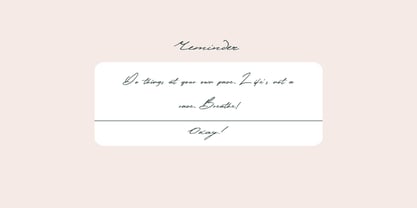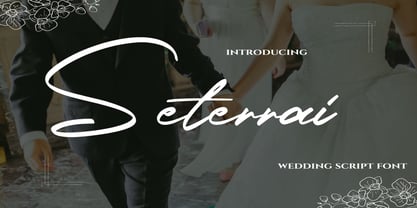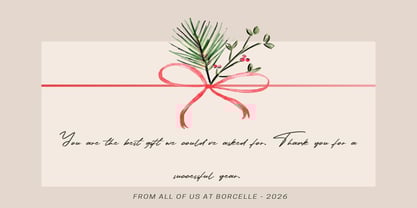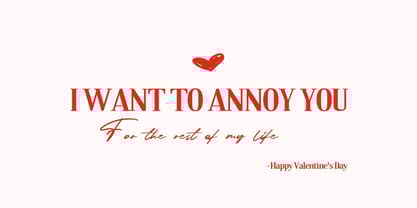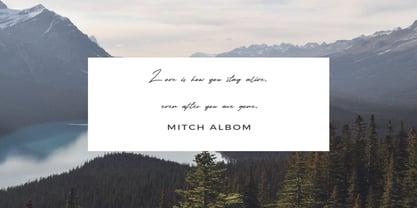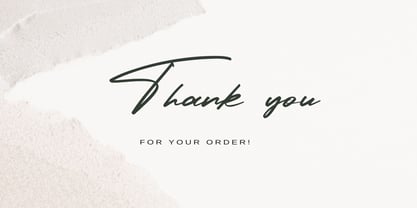
Seterrai
by Dream Font
The Seterrai Font Family was designed by A. Pat Hickson and published by Dream Font. Seterrai contains 1 styles. More about this family
Seterrai is chic modern calligraphy font.
Seterrai includes full set of lovely uppercase and lowercase letters, multilingual symbols, numerals, punctuation and ending lowercase swashes. The font has smooth texture, so would be perfect for all types of printing techniques+you can do embroidery, laser cut, gold foil etc
Designers: A. Pat Hickson
Foundry: Dream Font